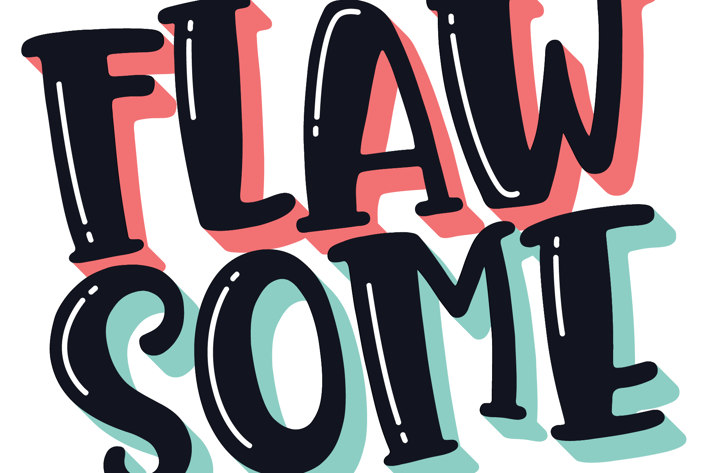
Flawsome Font
Introducing: Flawsome! A bold and playful all-caps font that includes two versions of each letter (accessed with upper and lowercase keys) which can be used separately or on top of each other to achieve a different look.